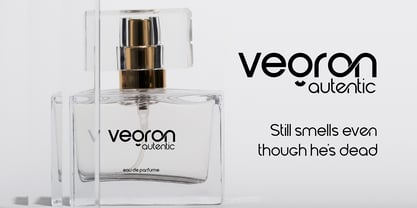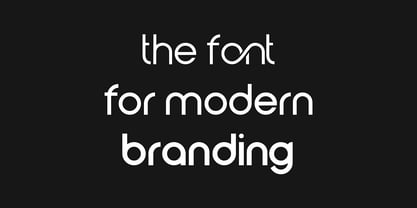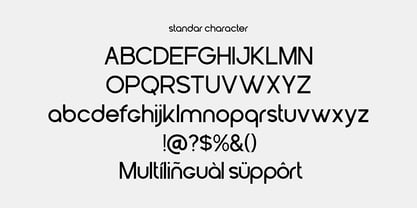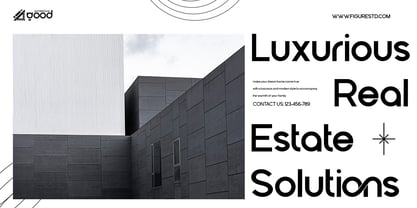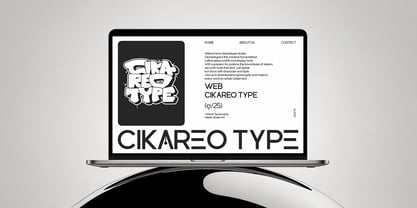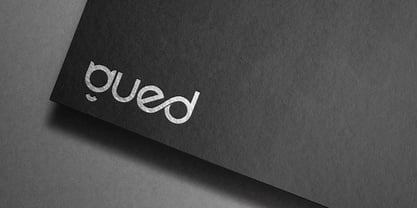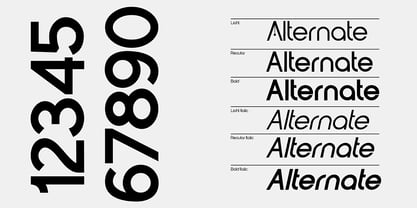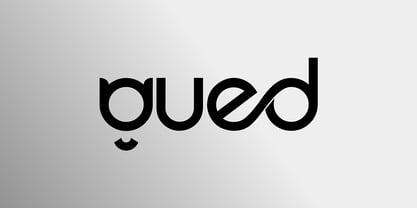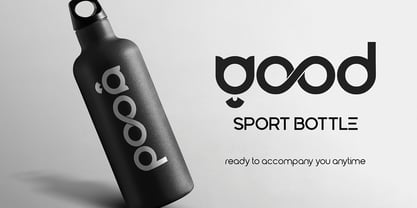
Gued
by Sipanji21
The Gued Font Family was designed by Sipanji and published by Sipanji21. Gued contains 6 styles and family package options.
Gued is a modern minimalist logo font built for clarity, balance, and style. Every curve and line was crafted with precision to achieve a clean yet distinctive visual identity. Its geometric structure and smooth connections make it ideal for designers who want a typeface that’s simple, elegant, and instantly recognizable. Unlike traditional sans serifs, Gued plays with unique letter shapes and rounded edges that flow seamlessly together, giving it a sophisticated futuristic appeal. The design focuses on harmony and rhythm, making it ideal for logo design, branding, product packaging, and digital identity. Each character is built with perfect proportions that allow maximum readability even in small sizes, yet bold enough to make a statement in large-scale applications. The style fits perfectly into modern aesthetics — tech startups, architecture firms, luxury brands, fashion design studios, and creative agencies will find Gued an excellent match. Its minimalist personality gives it versatility across various creative projects, from print materials and packaging to websites and social media. Why Designers Love Gued Clean and minimalist aesthetic Smooth geometric flow for logo design Perfect for modern branding and creative identity Excellent balance between simplicity and uniqueness Optimized for both print and digital media Gued is not just a font — it’s a visual system built for timeless design. Whether you’re crafting a logo, monogram, or sleek headline, this font ensures elegance and clarity without losing character.
Designers: Sipanji
Publisher: Sipanji21
Foundry: Sipanji21